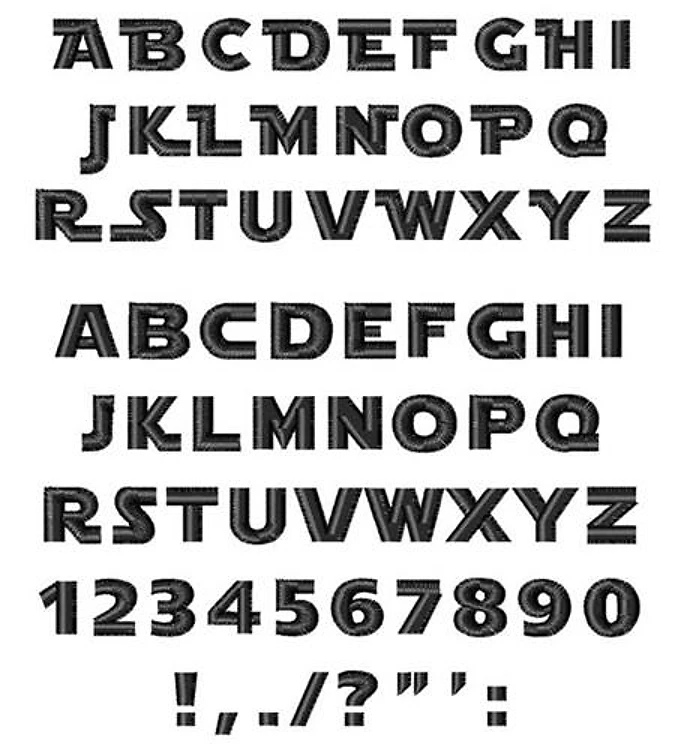
Bella Mia Designs is happy to present Jedi Star Wars machine embroidery font which has Classic block machine embroidery font for projects like jackets or home decor. The bold, filled letters ensure clarity on various surfaces. Available in PES, DST, and 10 other formats. included. If you would like to view more embroidery fonts and alphabets please search our embroidery fonts page.